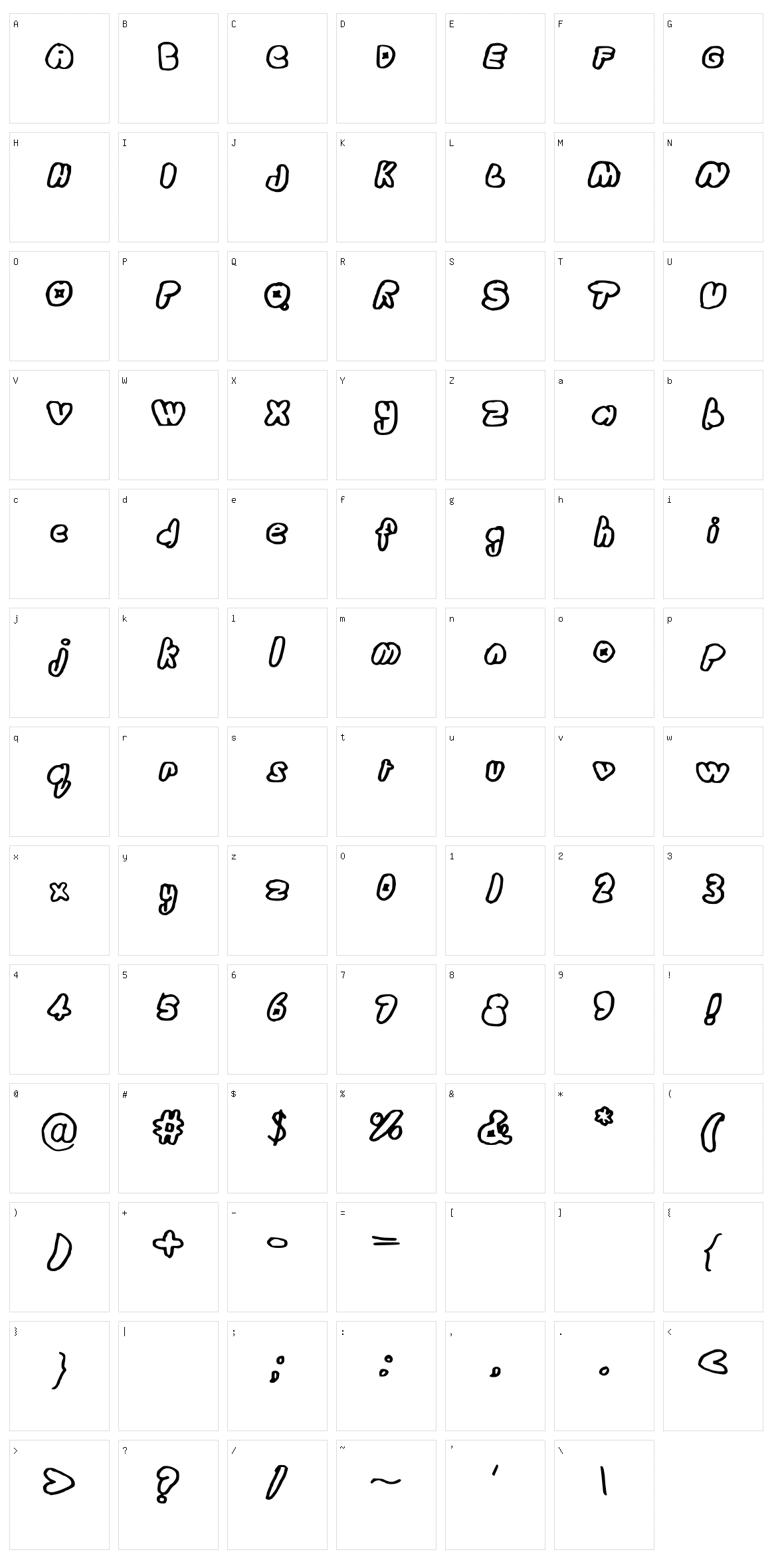
The free font WubDub is carefully designed by Kerem Ali Kaynak, showcasing a thoughtful balance of creativity and usability and falls under the Cartoon font style. When you download the ZIP file, it contains only 19.01 KB of font files, making it lightweight and quick to download. Please review the license details below to understand permitted usage and distribution rights. If license information is not available, we recommend using this font for personal projects only or contacting the author directly for commercial usage permissions.